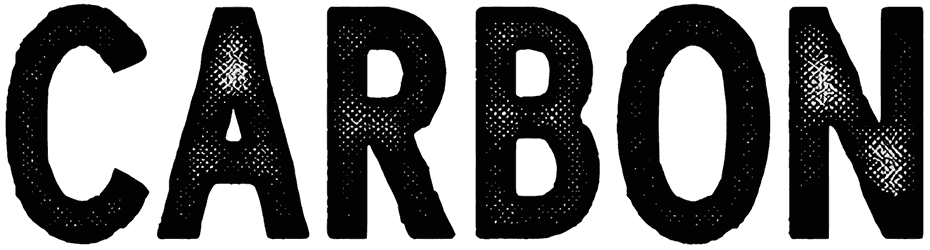
Carbon Font
If you like to decorate your coming design with a cool and captivating face, this industrial font would be an apt choice. Carbon has a bold and rusty form that can throw a catchy vibe into your project.
As a fancy font, it doesn’t cover lowercase letters, numbers, and most punctuation marks. Try Carbon for your creative designs, such as posters, movies, apparel, or the like, and make them unique.